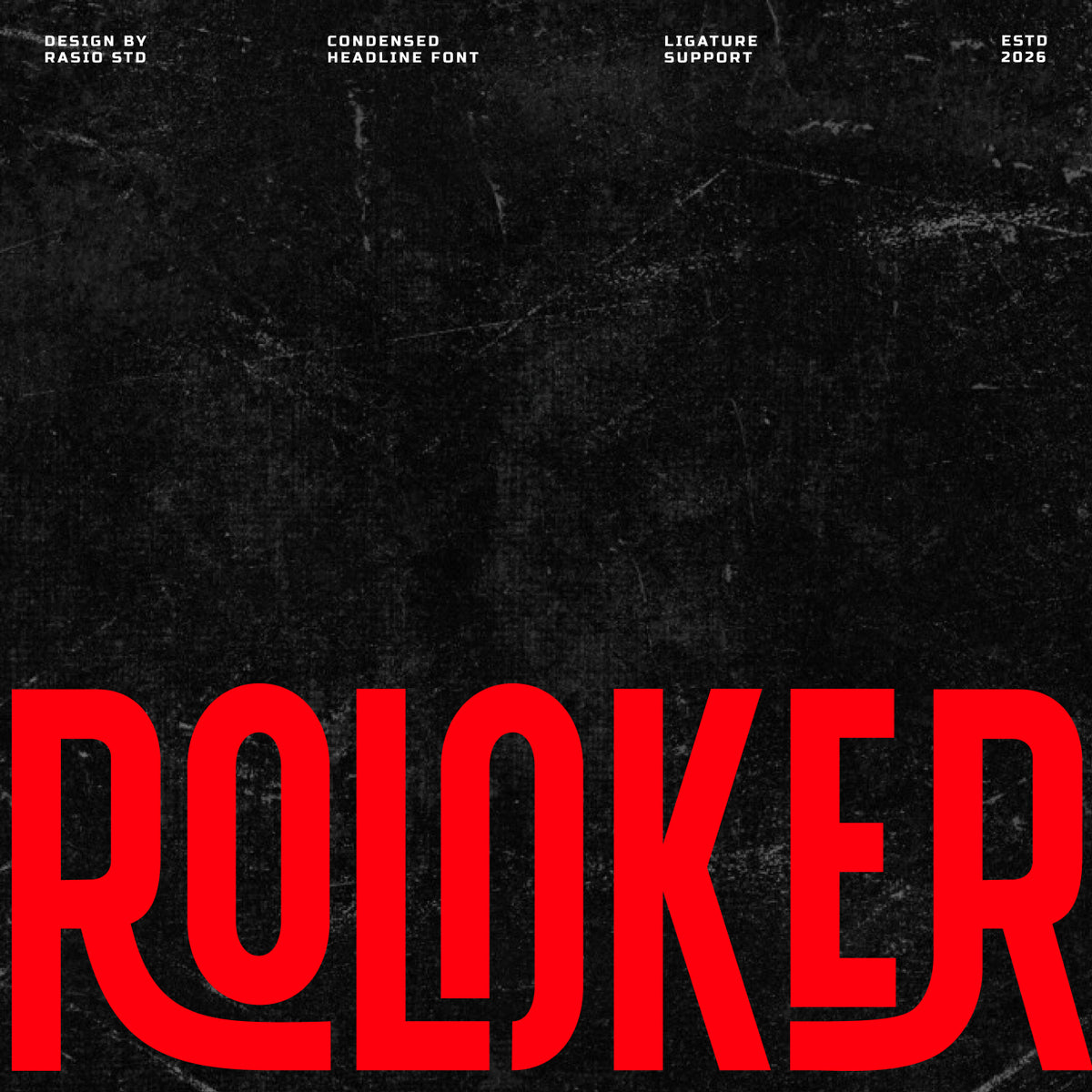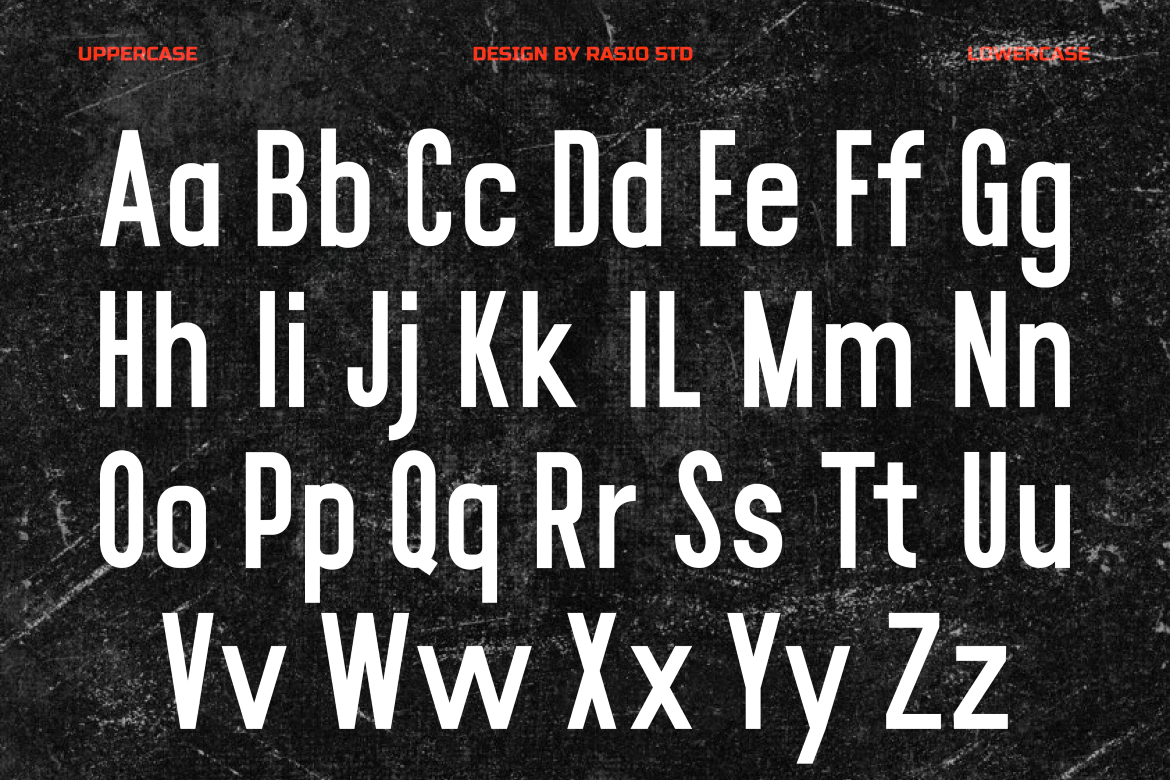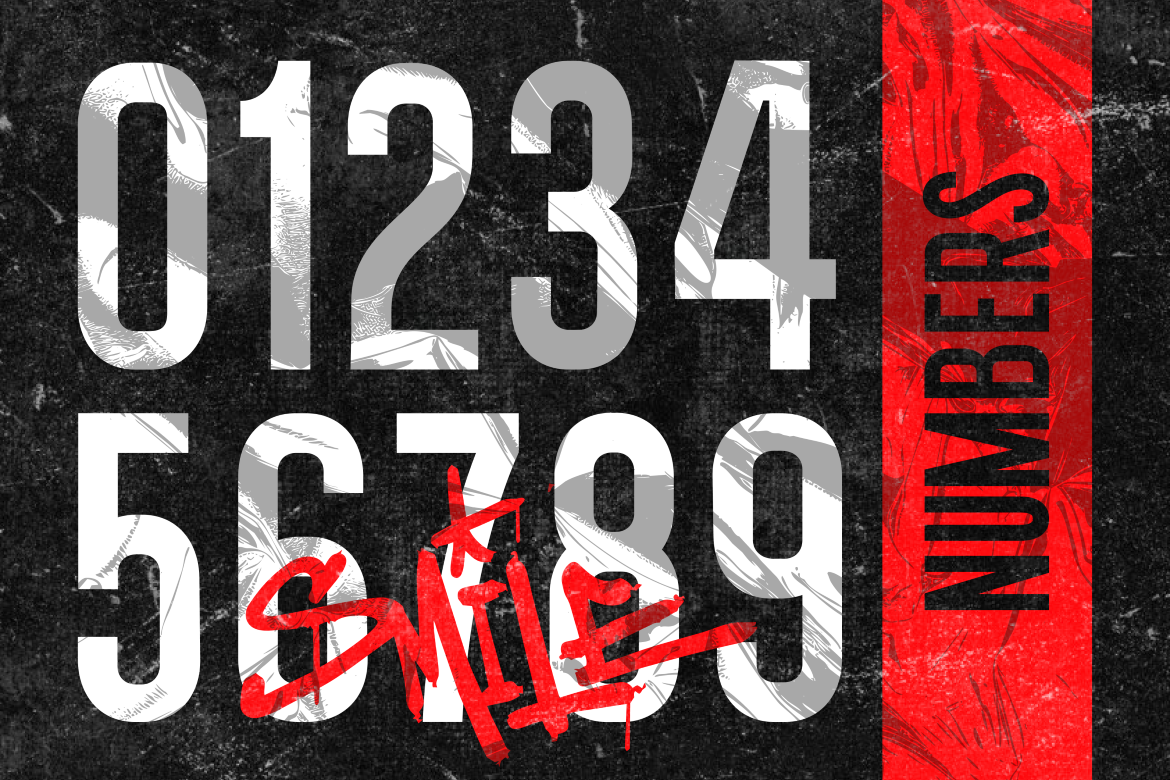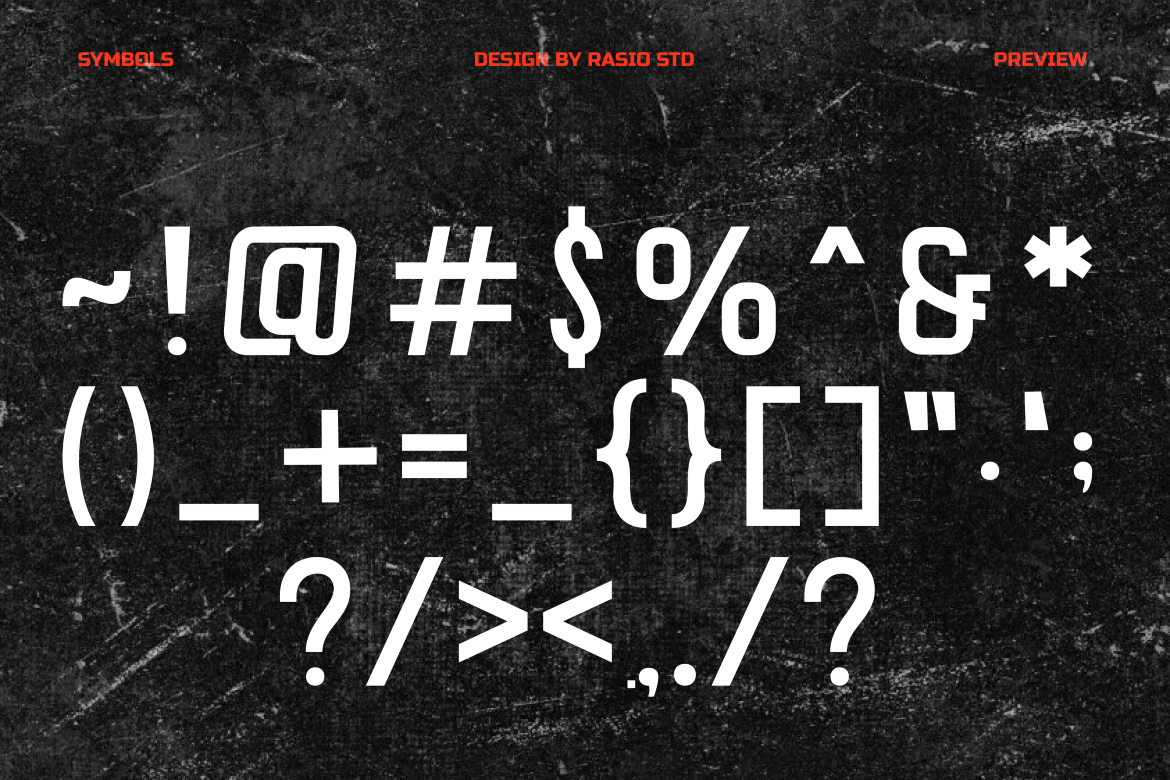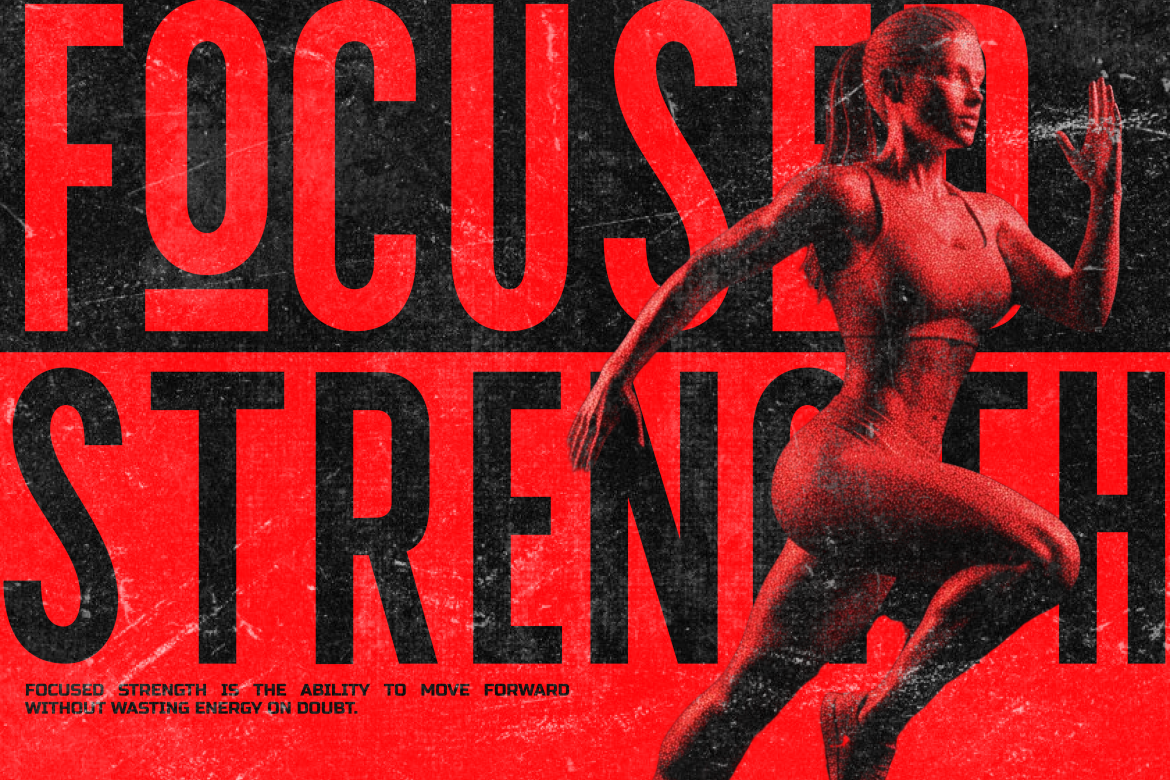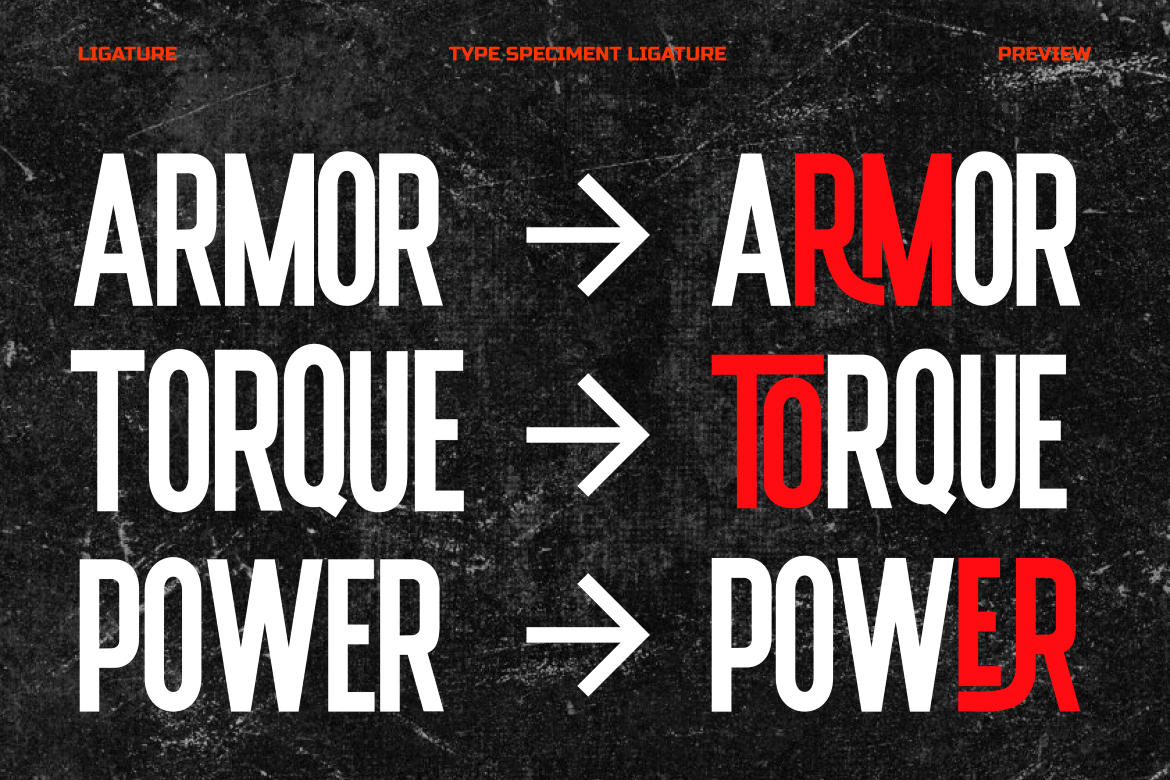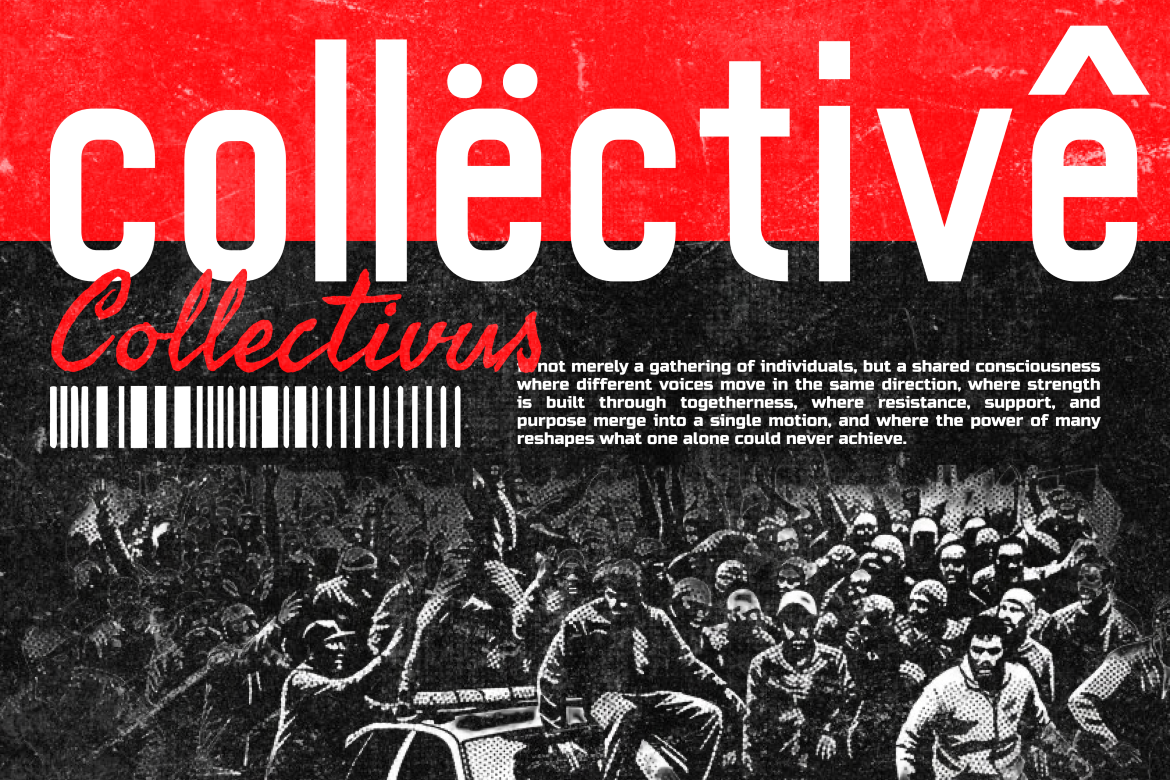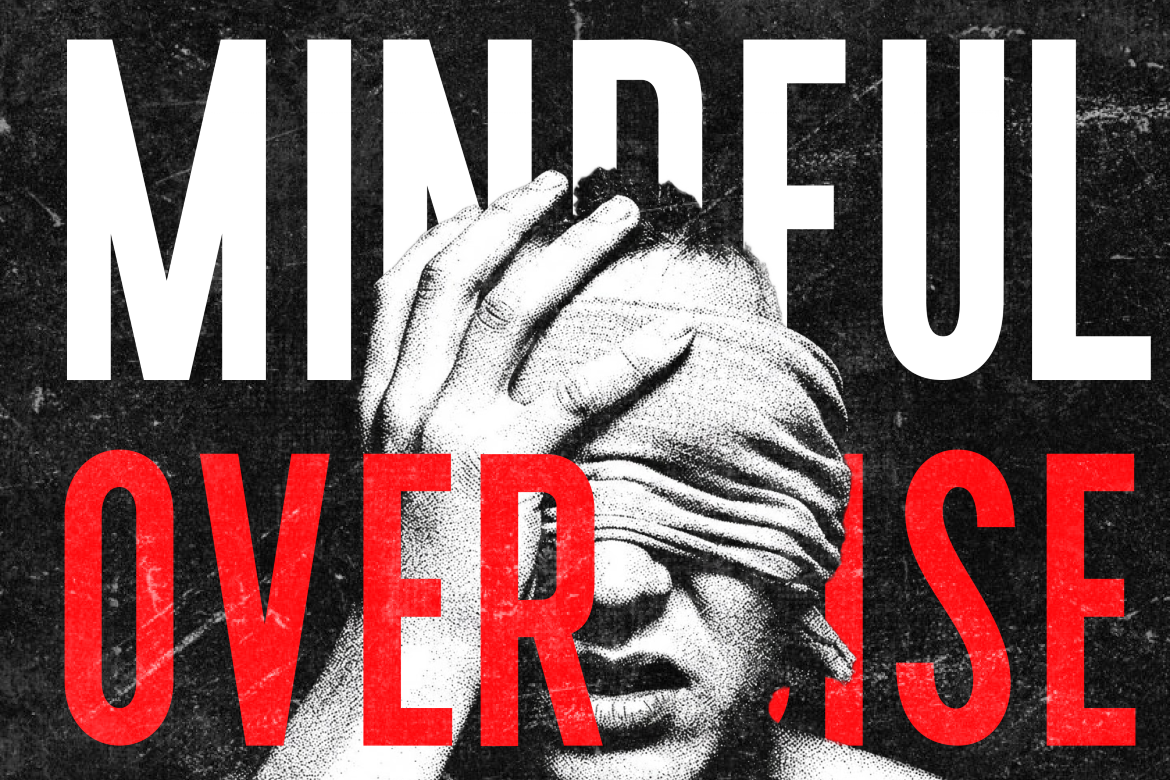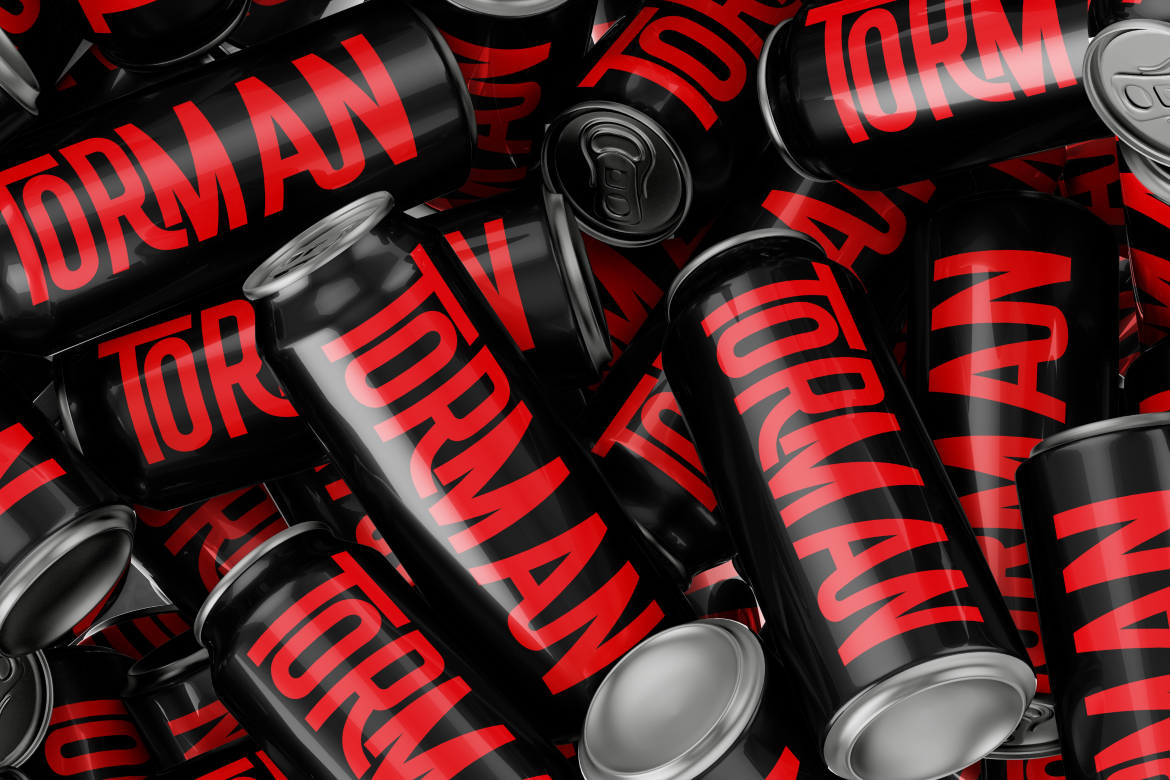
Roloker Condensed Headline Font
Roloker Condensed Headline Font is a bold display typeface designed with a tall condensed structure that maximizes visual impact while maintaining excellent readability. Its clean vertical proportions, strong strokes, and modern industrial character make it well suited for posters, branding, packaging, editorial headlines, sports graphics, advertising campaigns, apparel, and digital media. The typeface includes ligature support to create smoother typography and more refined headline compositions across professional design projects.
The font package provides uppercase and lowercase characters, numerals, punctuation, multilingual support, and carefully crafted ligatures for enhanced flexibility. The narrow letterforms help fit more content into limited spaces without sacrificing legibility, making the font suitable for magazine covers, product packaging, event promotions, website banners, logo design, social media graphics, signage, merchandise, and contemporary visual identities that require bold, condensed typography.
Standard Ligatures
Roloker Condensed Headline Font is a bold, tall condensed display typeface with uppercase and lowercase characters, numerals, punctuation, multilingual support, and standard ligatures. It is available in OTF, TTF, and WOFF formats with multiplatform compatibility.